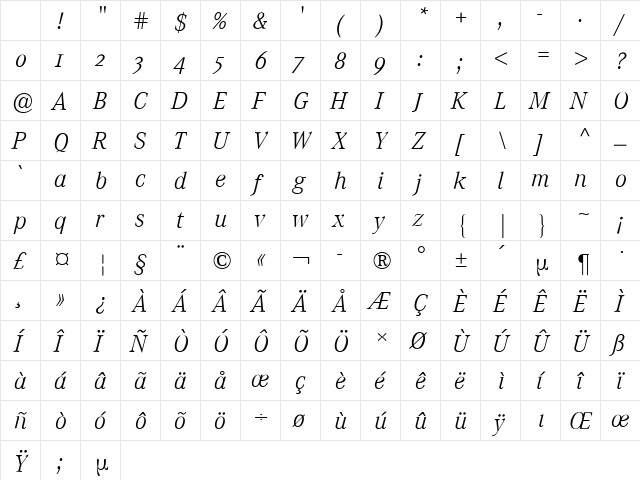
Complete Corporate A Expert BQ Light Italic glyph index. Displaying only characters natively supported by Corporate A Expert BQ Light Italic font.
Corporate A Expert BQ is a composed and adaptable typeface that performs quietly and consistently across a wide range of design contexts. The slanted form adds forward momentum and visual energy. Its slender proportions lend an understated elegance to any composition.
Pro Tip: Use Corporate A Expert BQ for emphasis, pull quotes, and subheadings where its slanted energy can add rhythm to the layout.